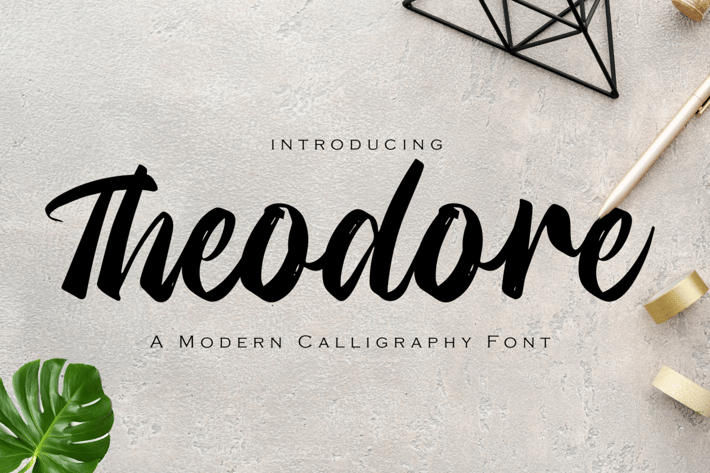
Modern Calligraphy Font
Looking for a creative calligraphy font that instantly catches the eye? Whether you’re designing an event invitation or want to make your business card elegant, the right font speaks more than just words.
Introducing Theodore- A Modern Calligraphy Font.
Artistic and stylish, this is a fantastic font for all the creative souls out there. It works equally well for both print and web, allowing you to use it for invitations, promotions, printed cards, clothing, web pages, apps, ads, and anything else your project needs.
Multilingual & Ligature Support
Full sets of Punctuation and Numerals